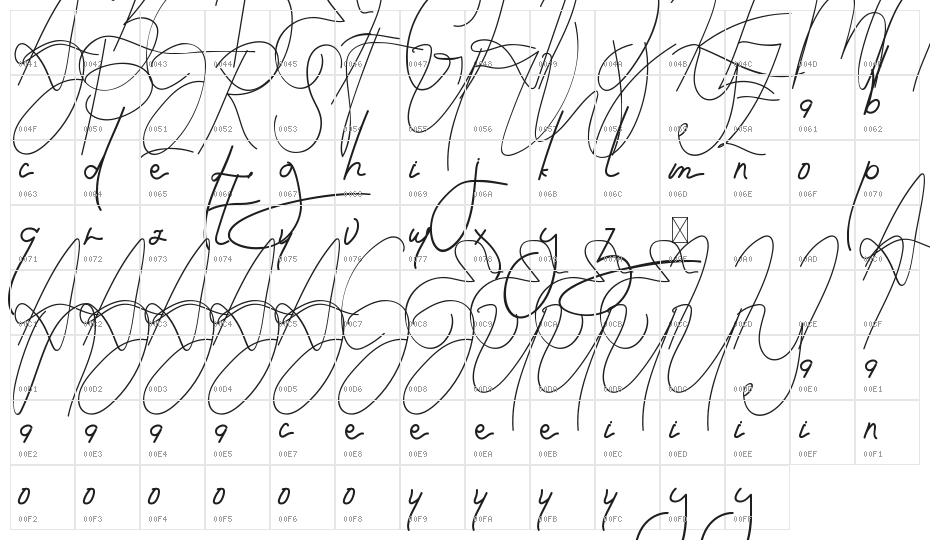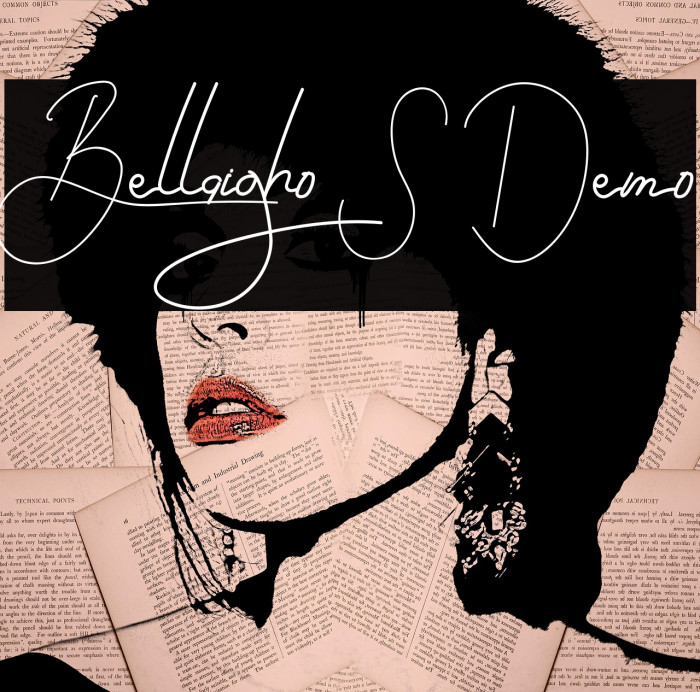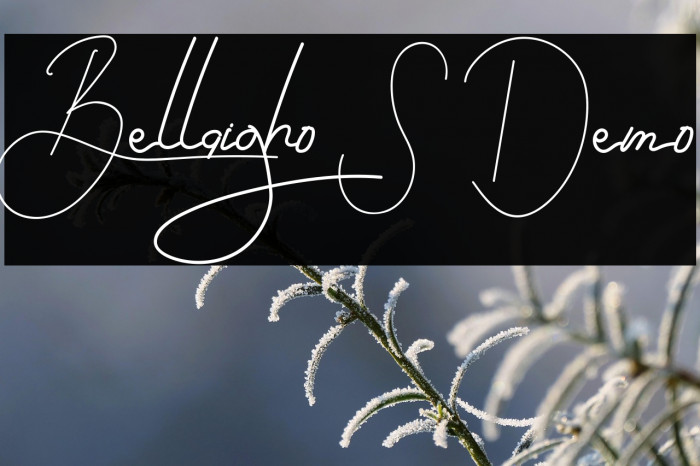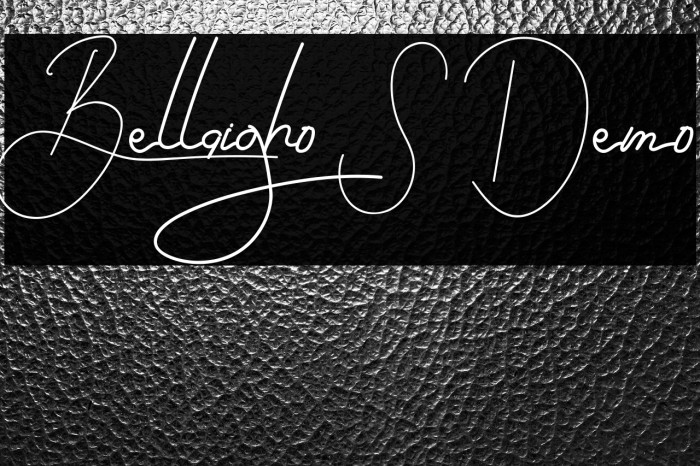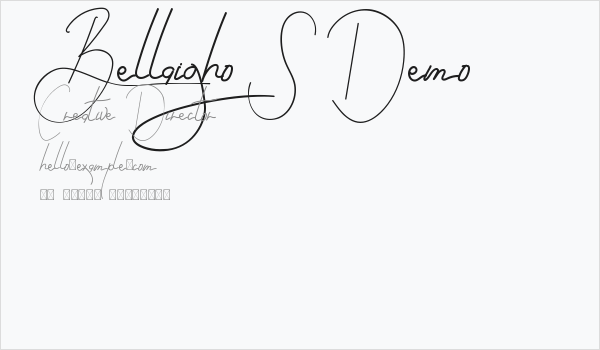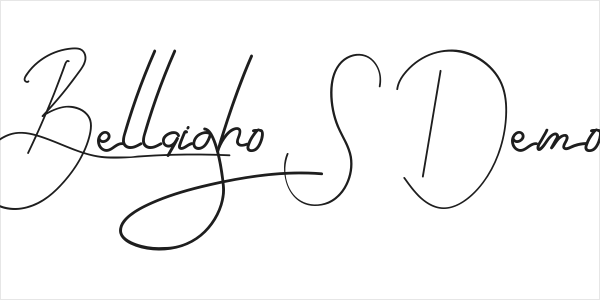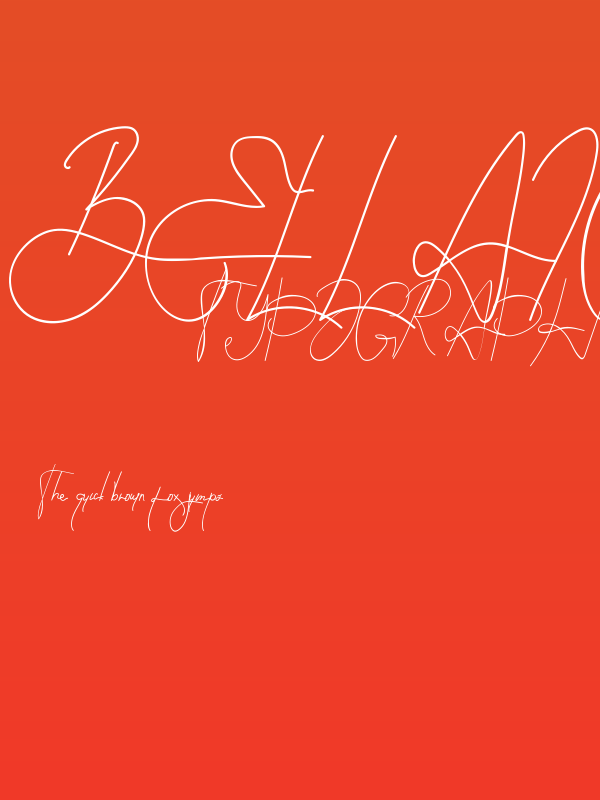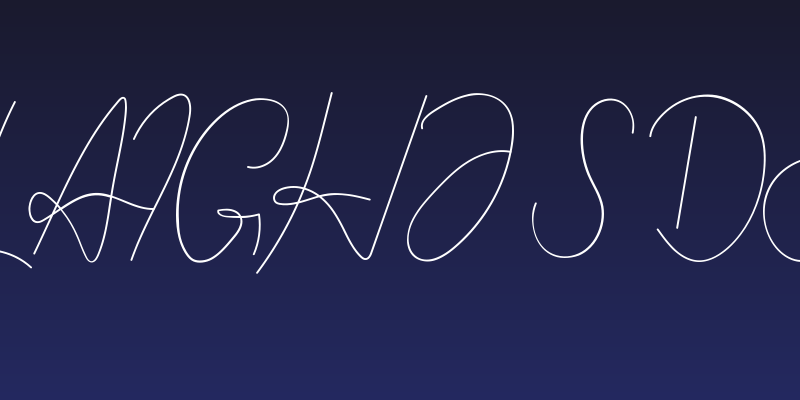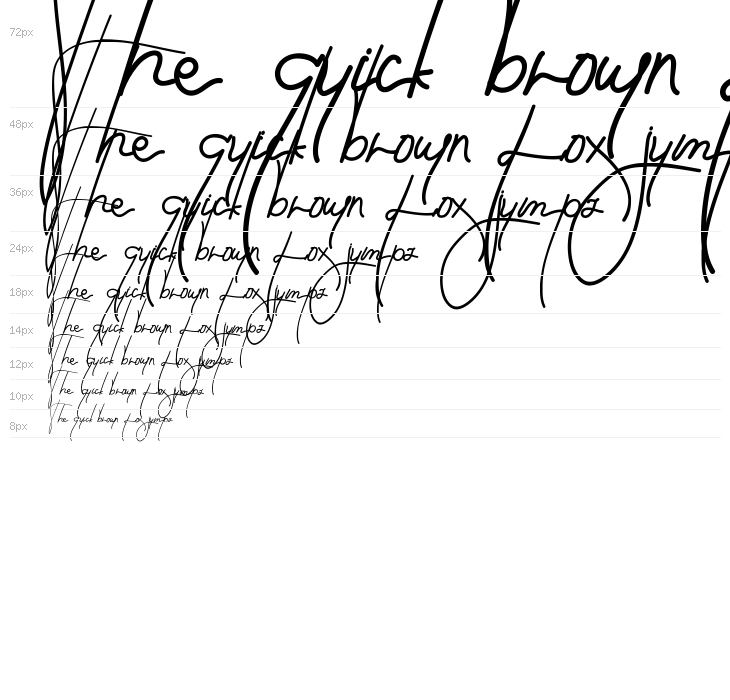
Bellaigho S Demo Font
Bellaigho S Demo Description
This font features an elegant and flowing script style, characterized by its cursive and interconnected letterforms. The strokes are smooth and fluid, giving it a handwritten appearance that exudes sophistication and grace. The uppercase letters are distinct with their tall and slender forms, while the lowercase letters maintain a consistent flow, enhancing readability despite the intricate design. The font includes a full set of uppercase and lowercase letters, numbers, and a selection of special characters, making it versatile for various applications. Its artistic flair makes it suitable for creative projects that require a personal touch.